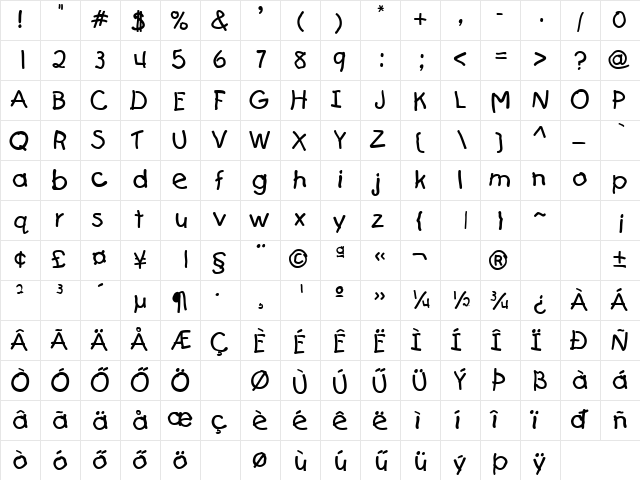
H_Kids Regular Free Font
H_Kids Regular
Complete H_Kids Regular glyph index. Displaying only characters natively supported by H_Kids Regular font.
Design Context for H_Kids
H_Kids has an approachable, lighthearted character - its loose, expressive forms are well-suited to children's content, casual branding, and fun-first design.
Font Pairing: Pairs well with a rounded or humanist sans for body copy, maintaining the friendly tone without relying on H_Kids to carry extended reading.
Pro Tip: Use H_Kids at larger display sizes where its expressive character can land. Pair with a clean, simple sans for body copy to maintain readability.